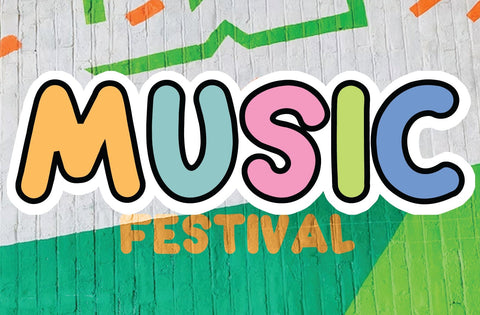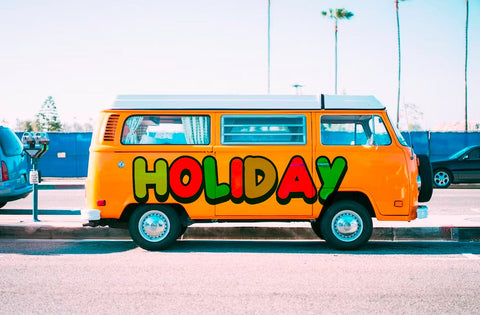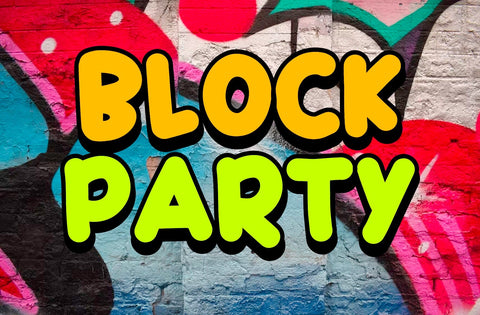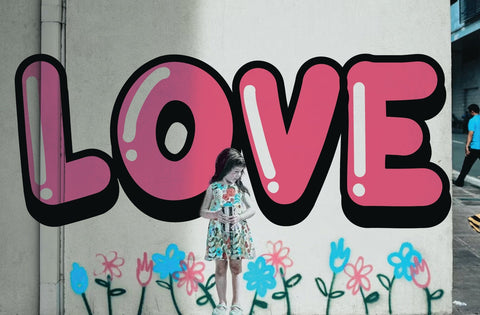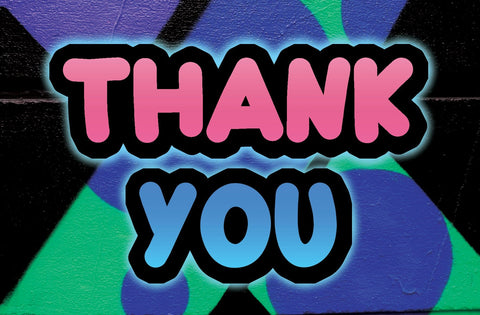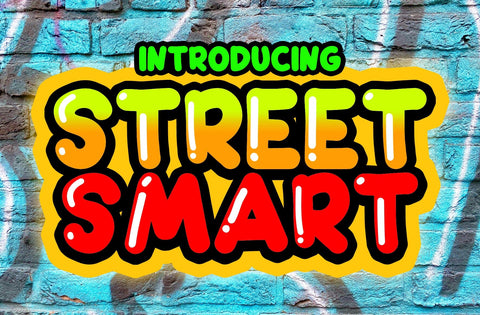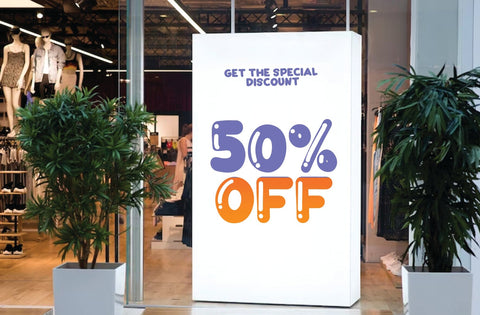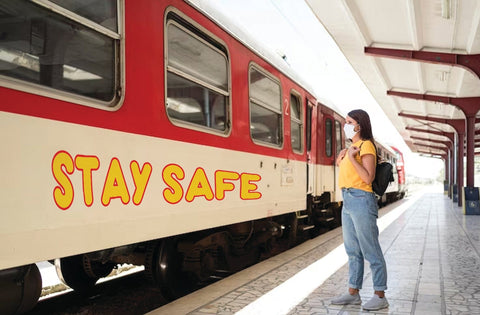
Street Smart - Fun Graffiti Font
Introducing: Street Smart is a fun and bold graffiti font, which includes six versions of each letter which can be used separately or on top of one another for a different look. This font is PUA coded which means you can access all the glyphs and replace them easily!